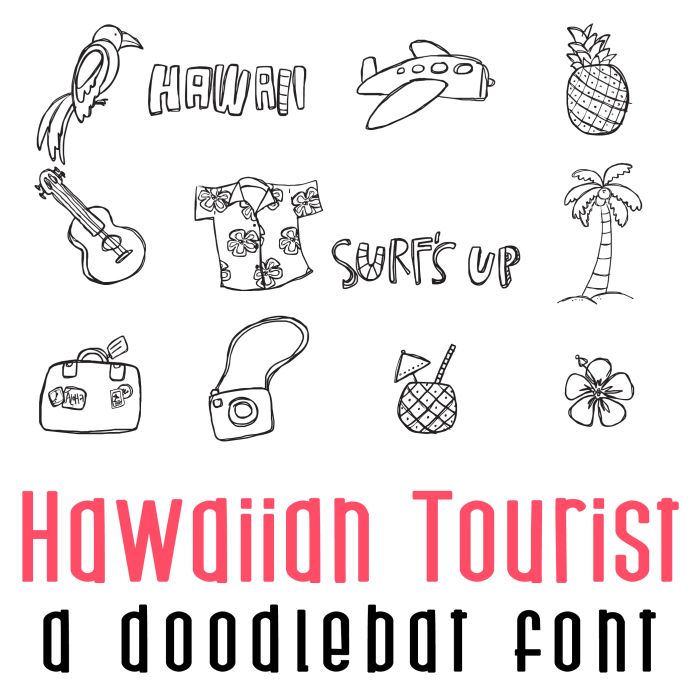
This fun doodlebat font features 36 different vacation and summer doodle style images, perfect for cards, crafts, gifts, decor, scrapbook pages, planner stickers, and more! Glyphs are A-Z and 0-9